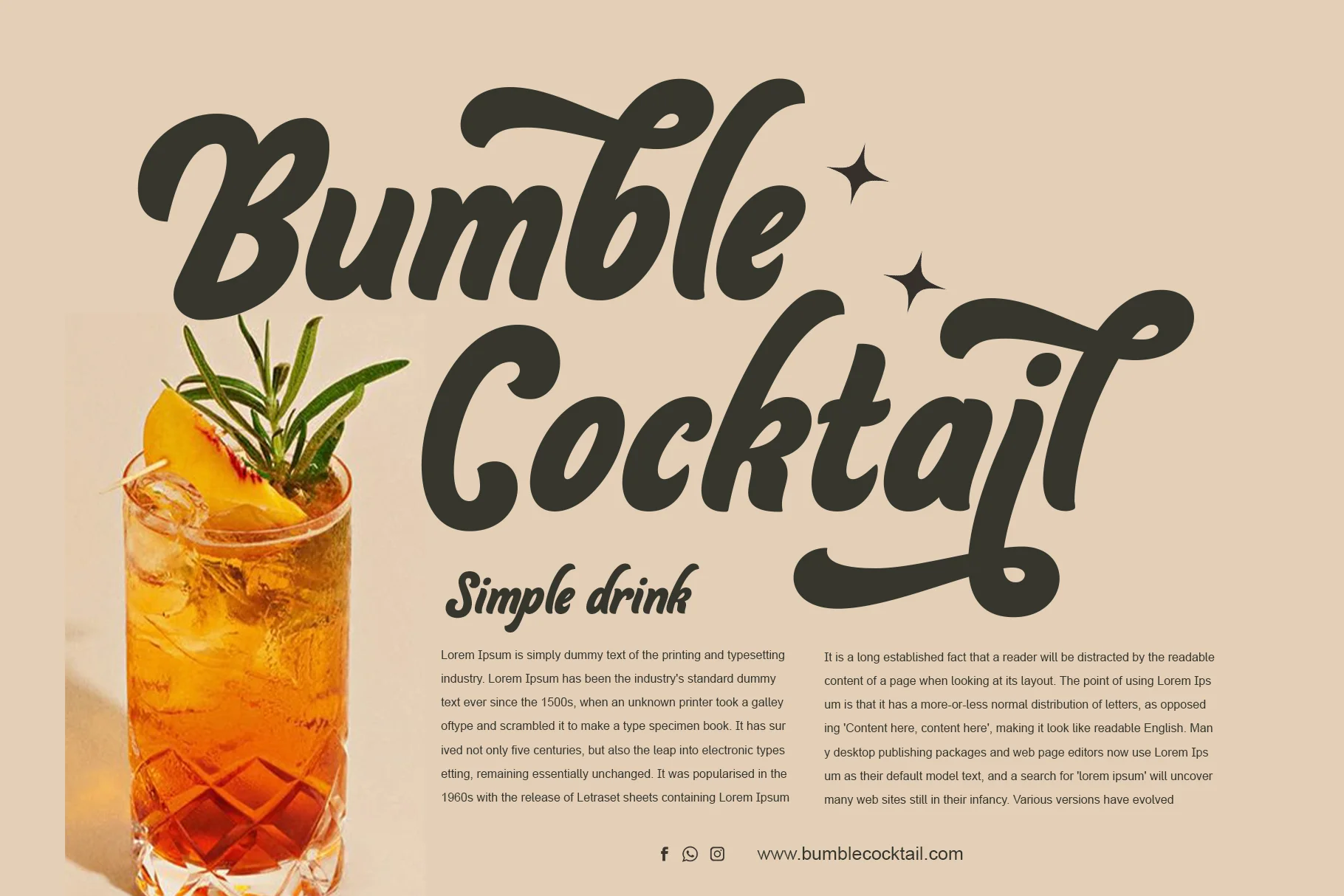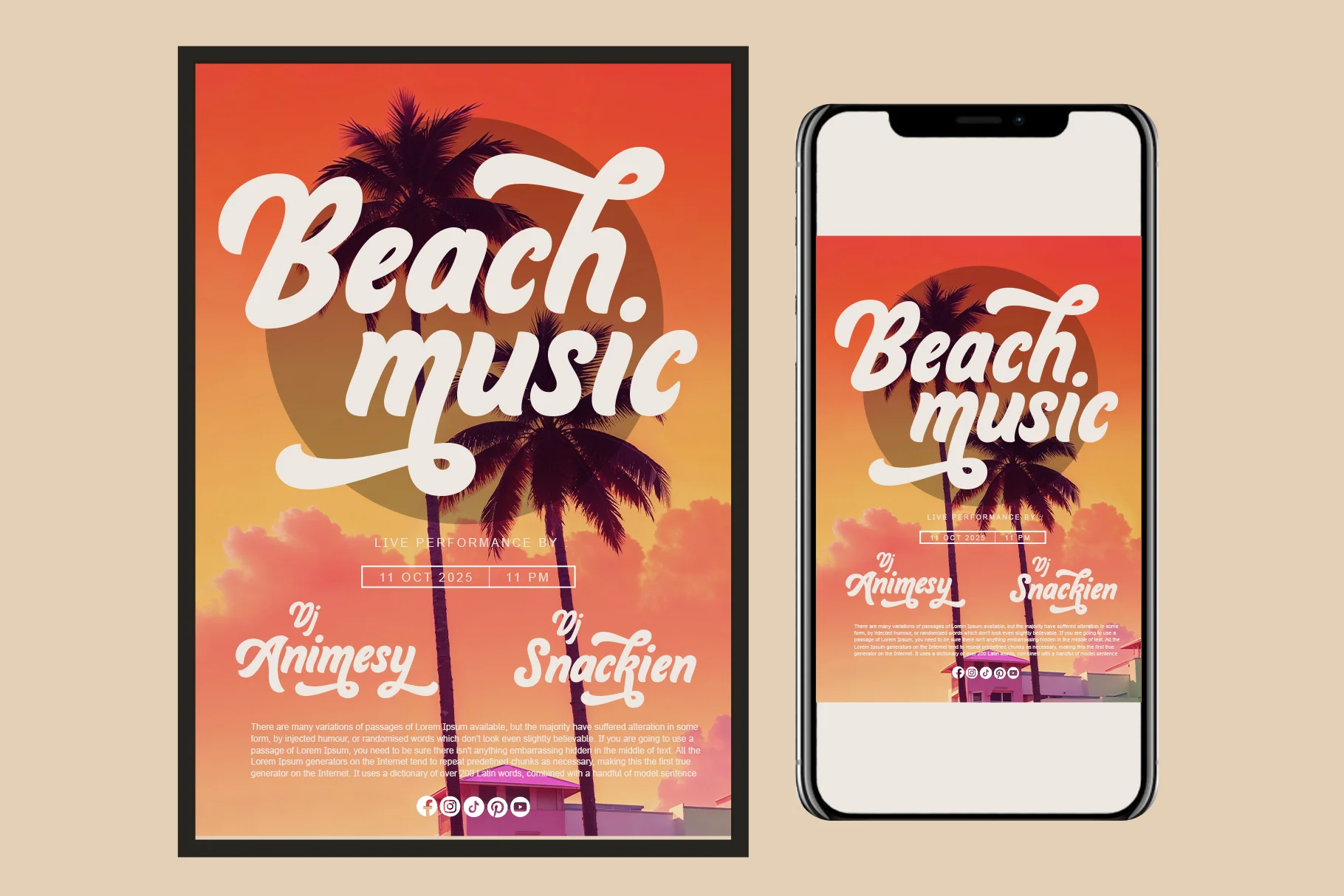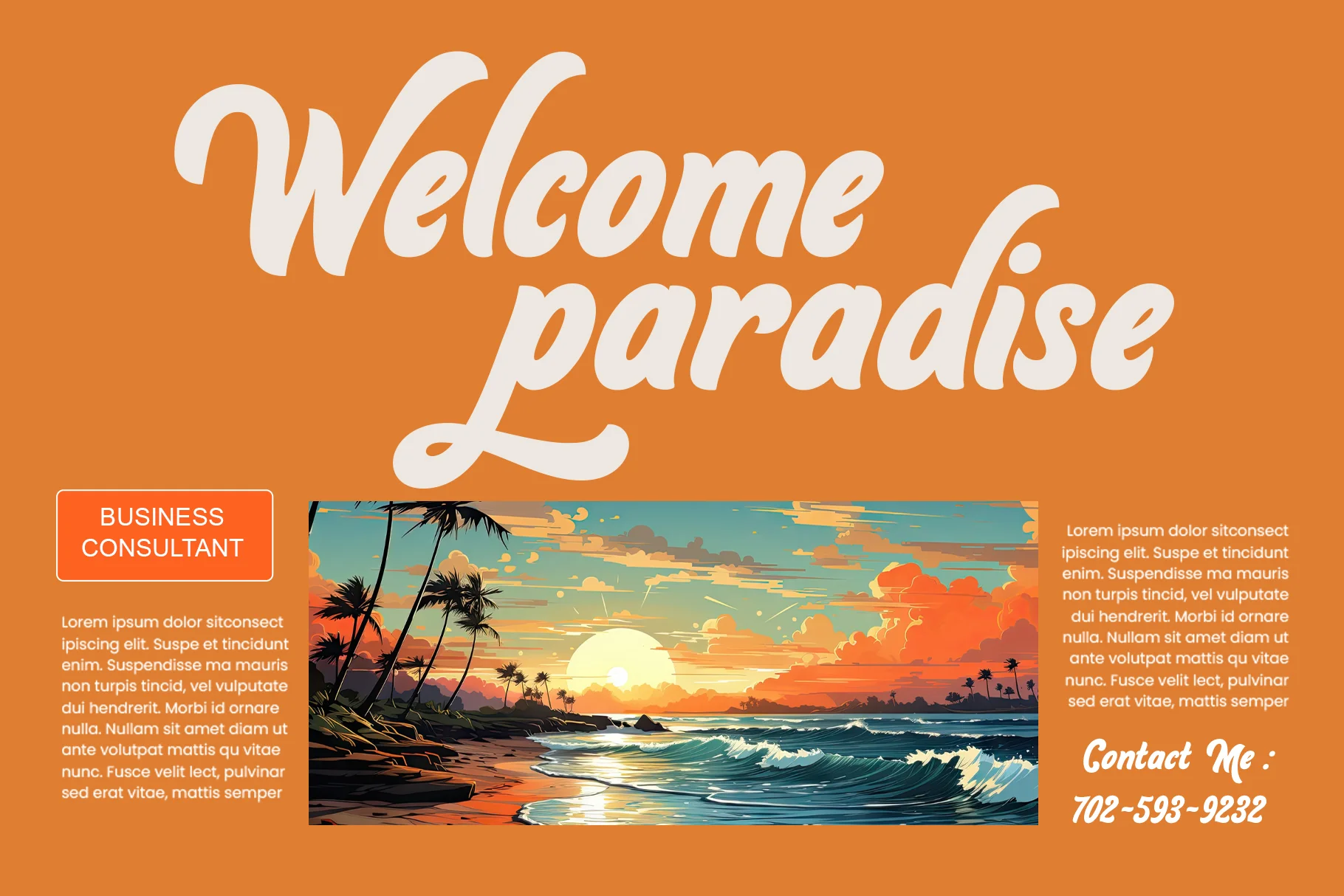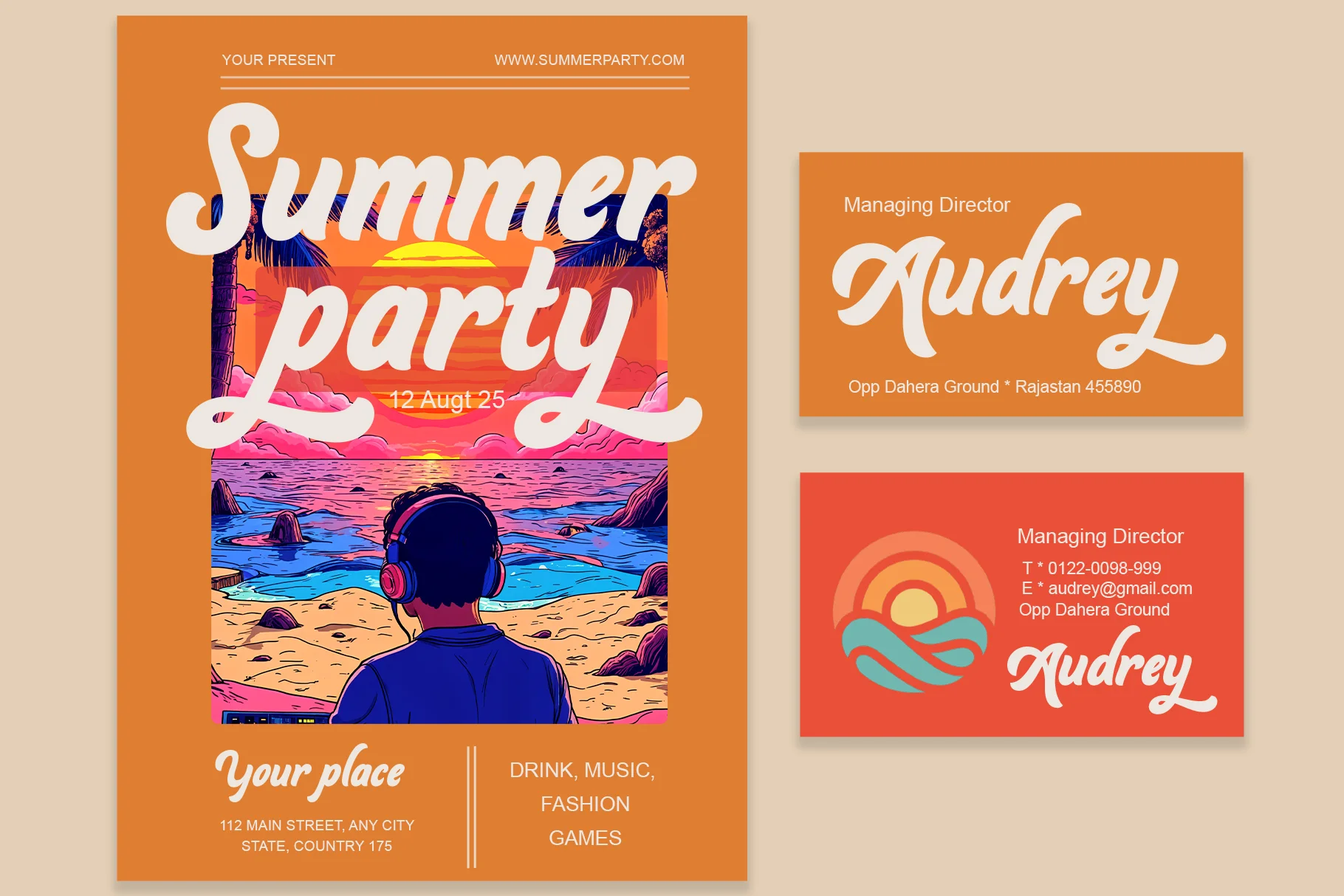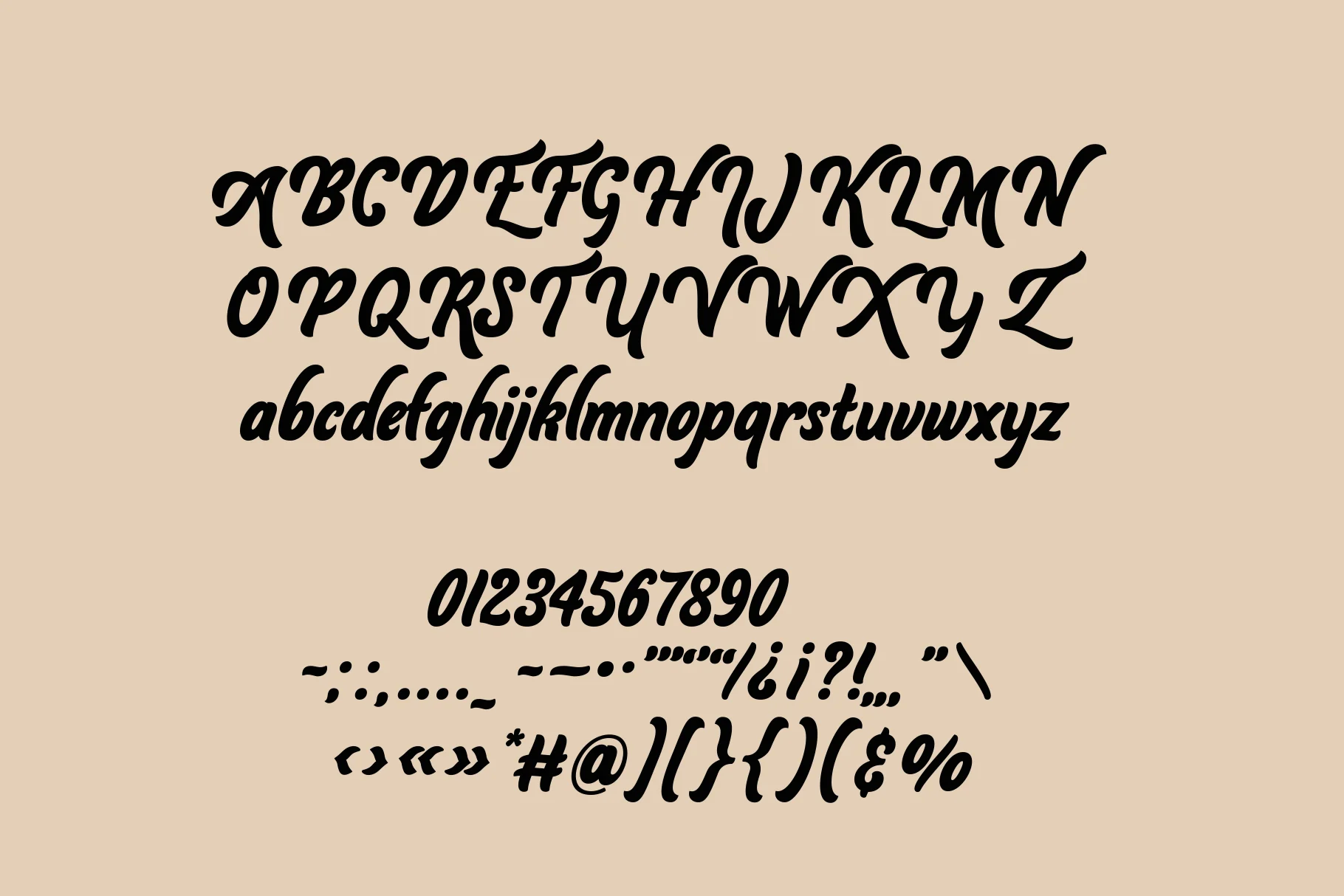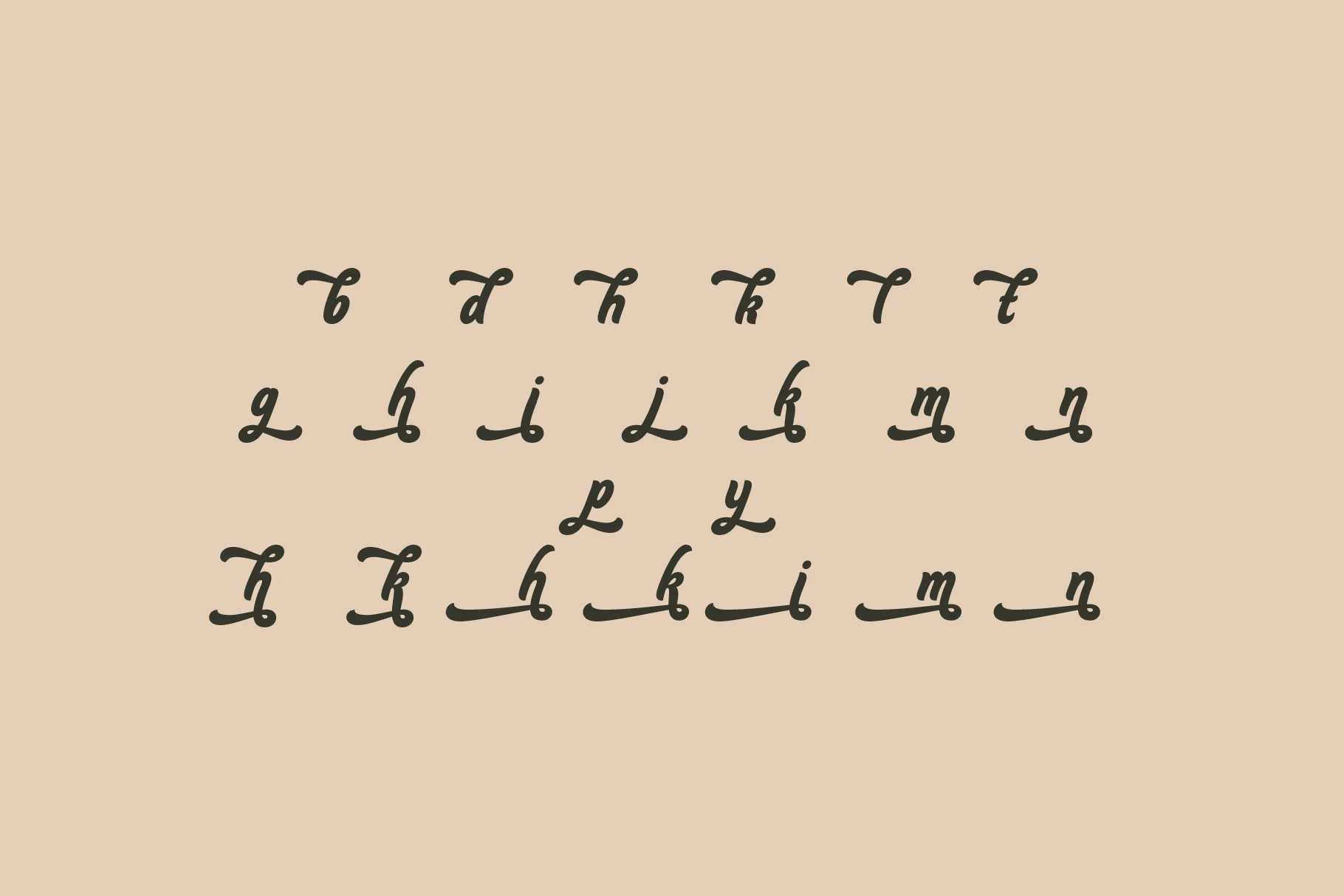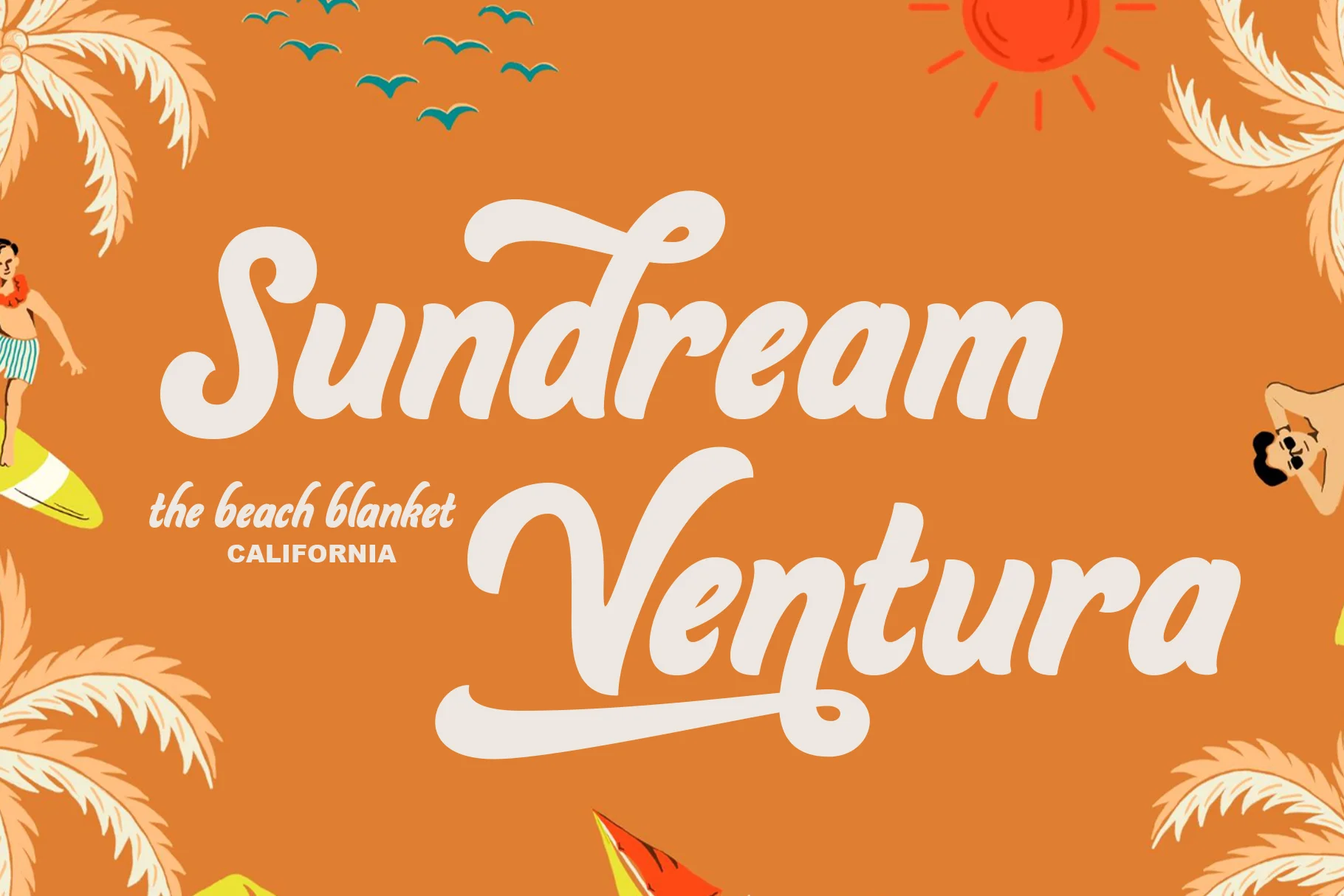
Glowing kilat
Glowing Kilat is a fun and retro bold script designed to capture the essence of summer and cheerfulness. Its thickness and rounded shape make it a strong and attention-grabbing display choice.The font features thick (bold) and rounded strokes, which give it a friendly, fun, and highly legible appearance.
- Uppercase and Lowercase – Complete range of letter cases for diverse uses.
- Numerals – Includes numbers for various creative needs.
- Functional – Designed for efficiency and aesthetic appeal.
- Multilingual Support – Includes characters for multiple languages.
- Stylistic Variations – Offers creative style options.